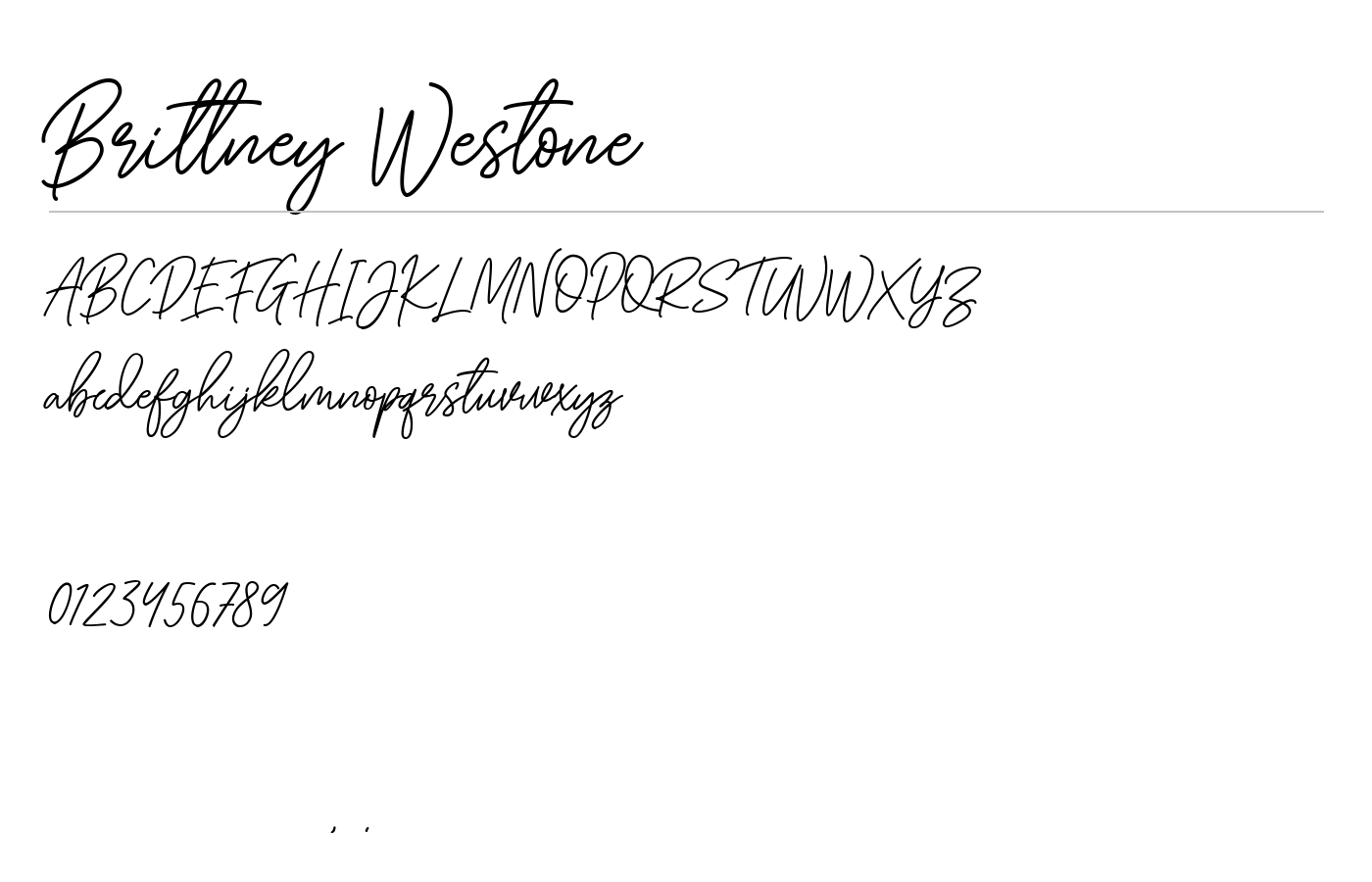
Brittney Westone is a delicate, handwritten script font with a light weight and flowing, elegant strokes that emulate natural penmanship. Its tall, slender letterforms and consistent thin lines give it a sophisticated, airy feel, ideal for adding a personal and stylish touch to invitations, branding, and creative projects that seek a graceful yet approachable aesthetic. This font works well in designs where an intimate and modern handwritten look is desired without sacrificing legibility.
Brittney Westone Font
About Brittney Westone Font